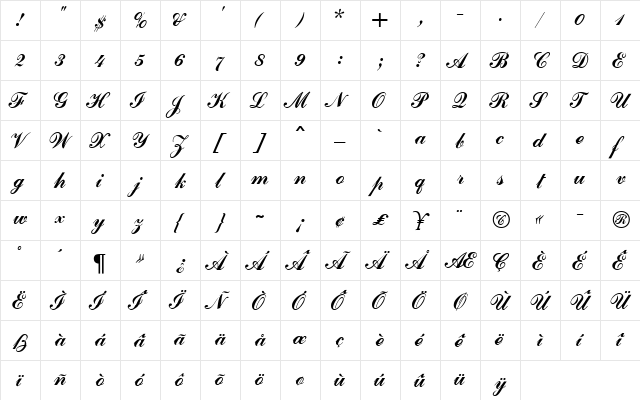
Commercial Script MN Regular
Design Context for Commercial Script MN Typeface
Commercial Script MN brings a calligraphic fluidity to the page — its connecting strokes and expressive curves give it an unmistakably human quality.
Font Pairing: Combine Commercial Script MN with a simple geometric sans for maximum contrast — the tension between flowing curves and clean structure is a classic typographic pairing.
Pro Tip: Use Commercial Script MN for short runs of text — names, titles, or taglines. Extended body copy in script faces tires the eye quickly.